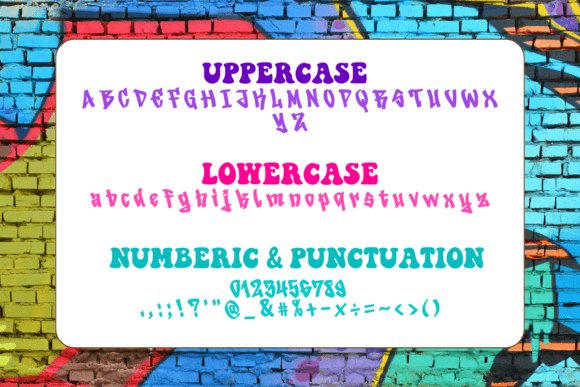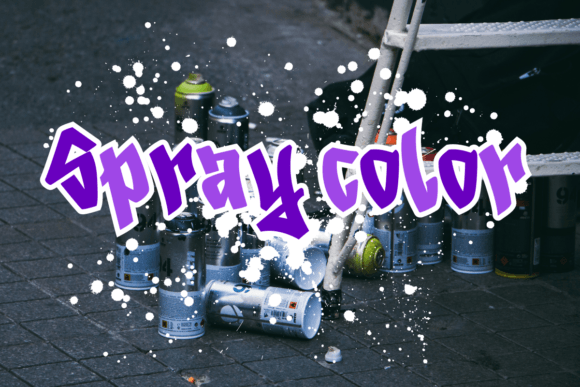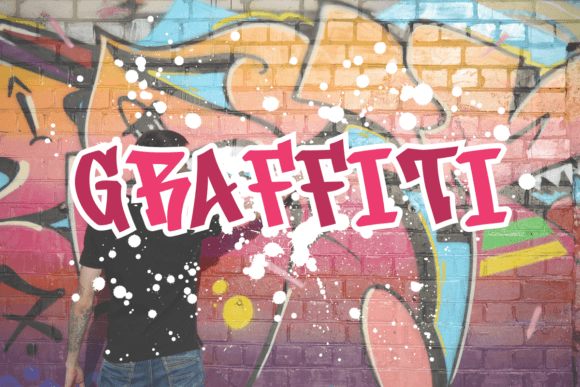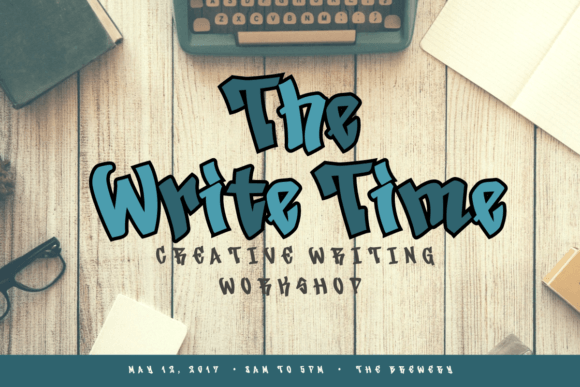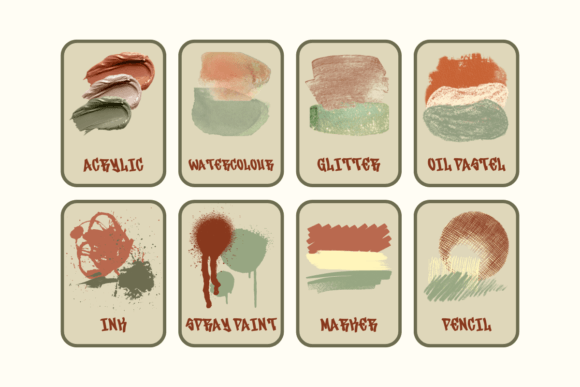
Introduction to Pretty Spray Font
Have you ever found yourself stuck in the middle of a creative project, desperately searching for the perfect font to bring your vision to life? I’m sure you have! We’ve all been there, pouring over font libraries, trying to find that one elusive style that will elevate our design to the next level. For designers, the right font can be the difference between a good design and a great one.
That’s why we’re excited to introduce you to Pretty Spray Font, a truly unique display font that’s sure to become a favorite among designers. With its masterful design and high-quality aesthetic, Pretty Spray Font has the potential to take your creative ideas to new heights. Whether you’re working on a free download project or a high-stakes design brief, this font is sure to impress.
One of the standout features of Pretty Spray Font is its transparent background, making it a versatile design resource that can be used in a variety of creative applications. From logos to social media graphics, Pretty Spray Font is the perfect addition to any design project.
Key Features of Pretty Spray Font
- High-quality design: Pretty Spray Font is a unique and creative design resource perfect for various projects.
- Transparent background: This feature makes it easy to overlay the font on any image or background, giving you more creative freedom.
- Size and resolution: The font comes in 1 style with 1 weight, and is available in a standard 1024 x 1024 resolution.
- Unique characteristics: The Pretty Spray Font features a distressed, hand-painted look that adds a touch of elegance and sophistication to any design project.
- Perfect for creative projects: This font is ideal for designers working on various projects, from branding and advertising to digital art and graphic design.
Honest Review: Pretty Spray Font
I recently stumbled upon the Pretty Spray Font, and I’m excited to share my honest review with you. As a designer, I’m always on the lookout for high-quality design resources that can elevate my creative projects.
One of the standout features of this font is its transparent background, making it perfect for overlaying on top of images or other designs. The font itself is beautifully crafted, with a playful and whimsical feel that’s perfect for a variety of creative projects. ✨
Here are some of the key features that I love about the Pretty Spray Font:
- Transparent background for easy overlaying
- Perfect for designers, artists, and writers looking for a unique font
While the Pretty Spray Font is a great addition to any designer’s toolkit, there are a few limitations to be aware of: ⚠️
- May not be suitable for formal or professional designs
- Not as versatile as some other fonts
Overall, I’m really impressed with the Pretty Spray Font. It’s a great resource for designers who want to add a touch of whimsy and personality to their creative projects. With its high-quality design and transparent background, it’s a must-have for anyone looking for a unique font.
To get the most out of the Pretty Spray Font, experiment with different font sizes, colors, and styles to create unique and eye-catching designs. You can also combine the font with other design elements to add depth and visual interest to your creative project.
The Pretty Spray Font is ideal for various creative projects, including social media graphics, blog posts, and marketing materials. Its high-quality design and transparent background make it a versatile design resource for any project.
Is Pretty Spray Font a high-quality design resource?
Yes, Pretty Spray Font is a high-quality design resource that is perfect for any creative project. It features a unique, hand-painted style with a transparent background, making it ideal for use in digital design, graphics, and print materials. The font is available